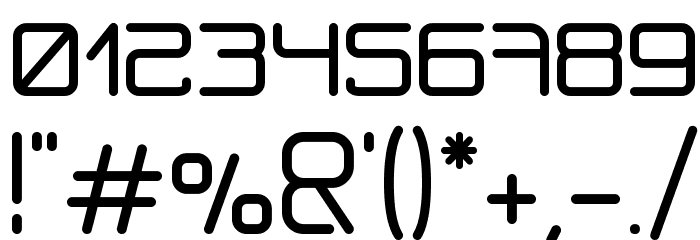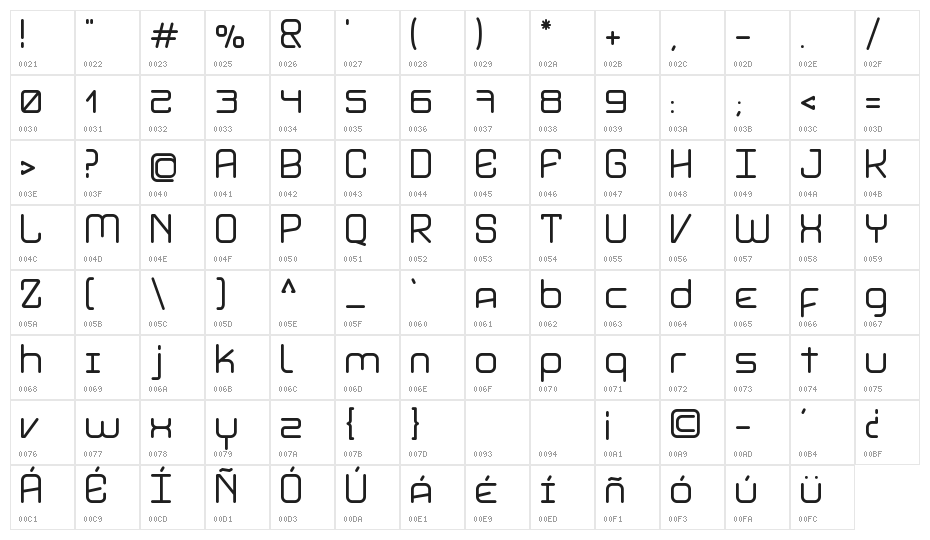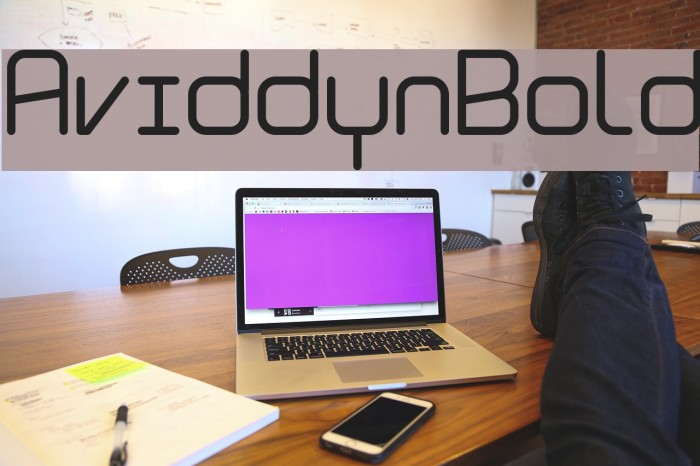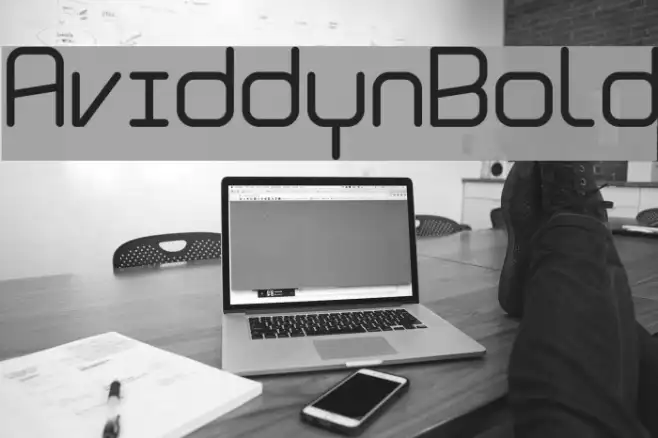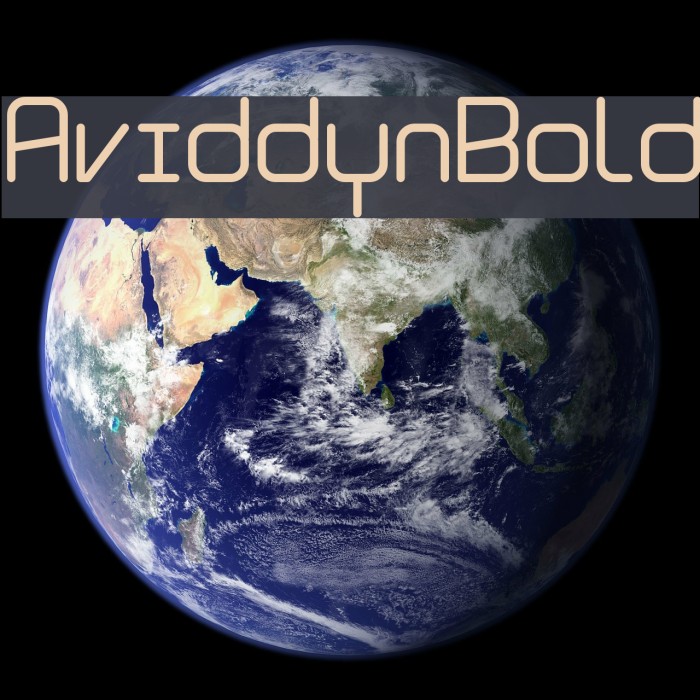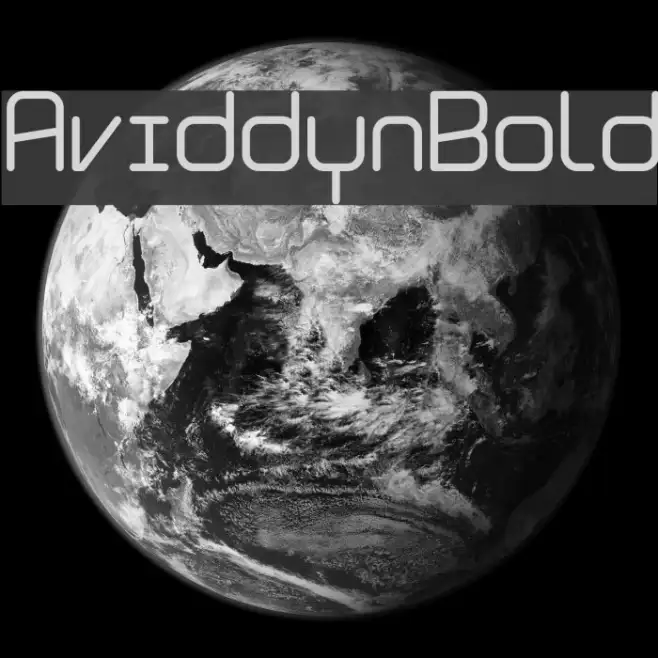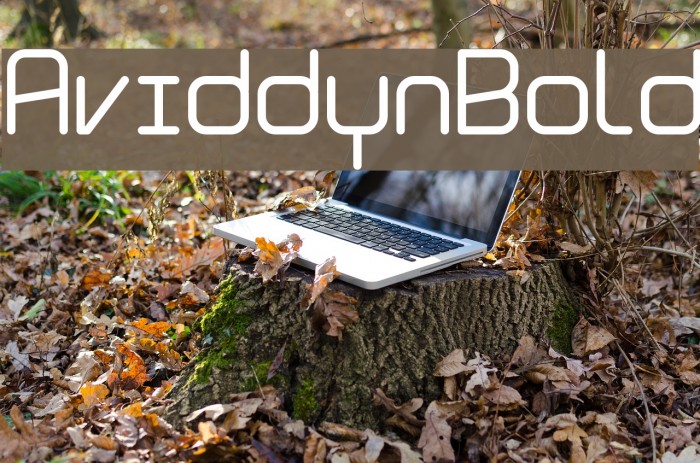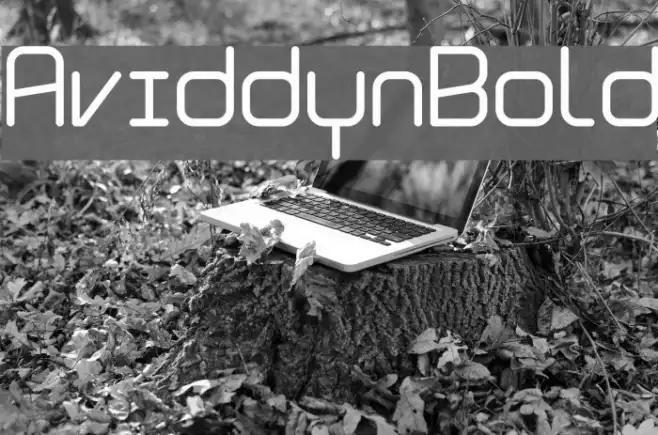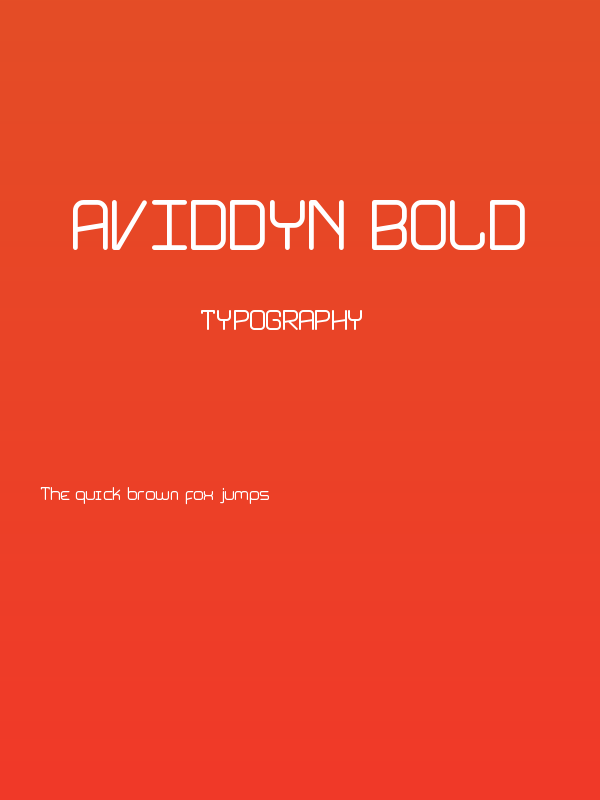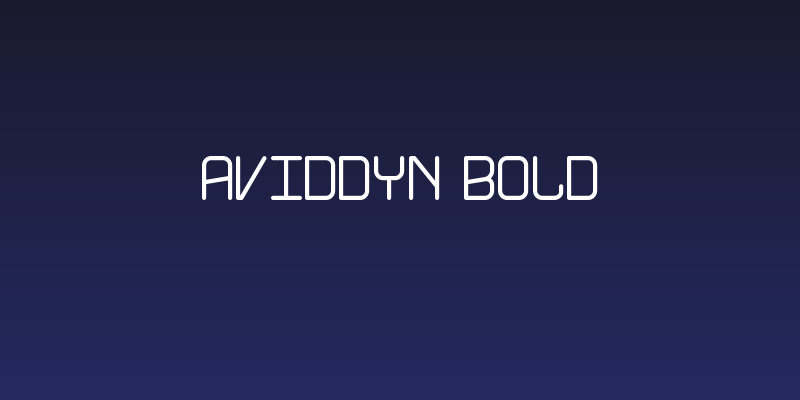
Aviddyn Bold Font
Aviddyn Bold Description
This font features a modern, geometric style with rounded edges and a clean, streamlined appearance. The characters are uniform in width, giving it a monospaced feel, yet it maintains a sense of openness and readability. The uppercase and lowercase letters are consistent in their design, with a focus on simplicity and clarity. The numerals and special characters follow the same design principles, ensuring a cohesive look across all elements. Its bold weight adds to its presence, making it suitable for attention-grabbing applications.
| Proposed Projects | Ideal for tech branding, digital interfaces, signage, and modern advertising. |